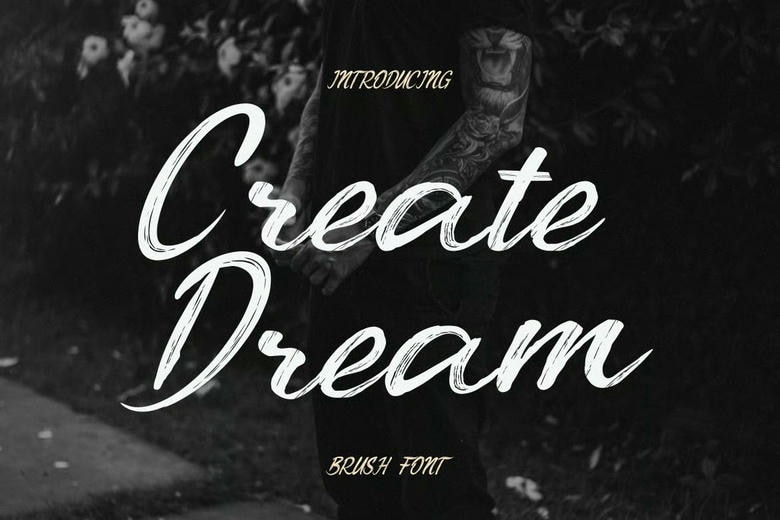
CreateDream Font
CreateDream Font is a brush typeface that comes in a variety of styles, featuring high contrast, sharp details, and classic charm. This typeface can be easily adapted for a variety of creative projects. It provides an elegant and professional look for any project.
CreateDream Brush Font